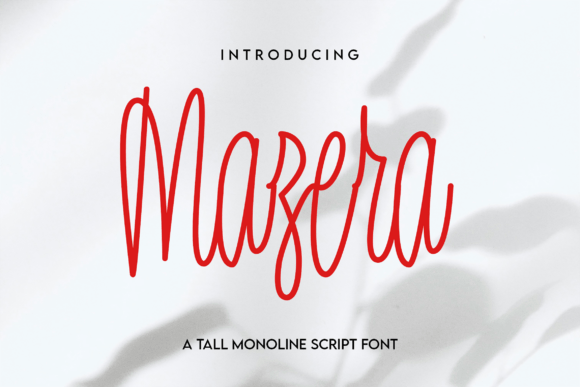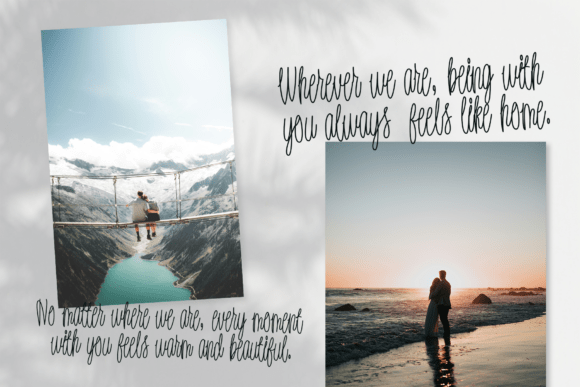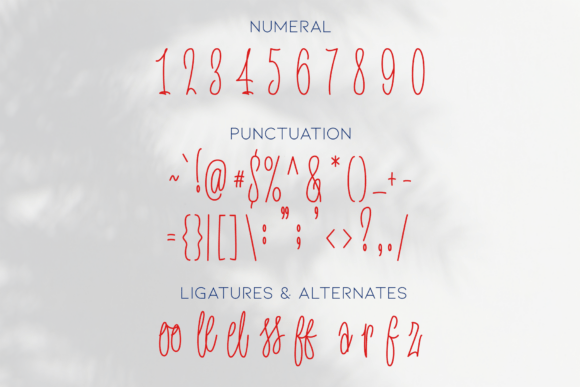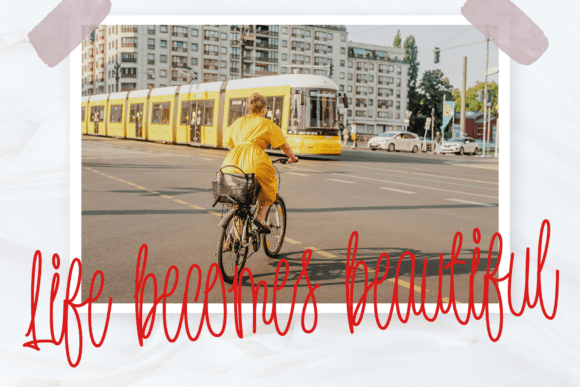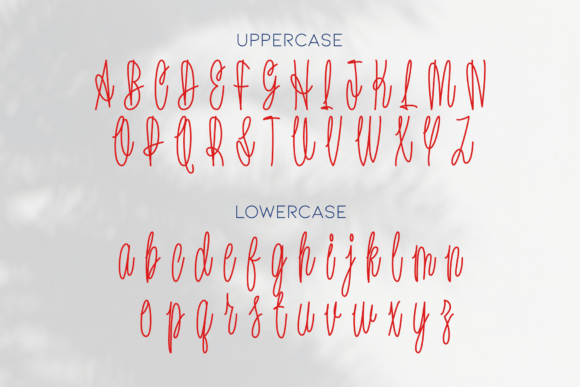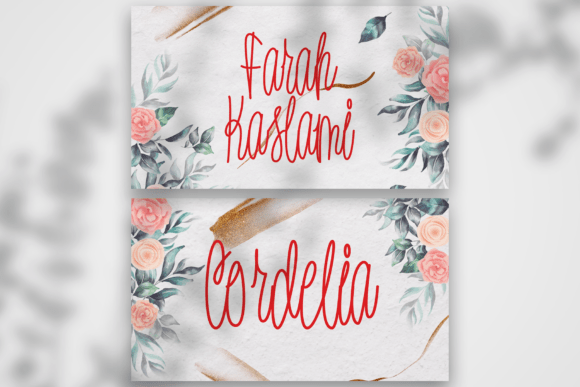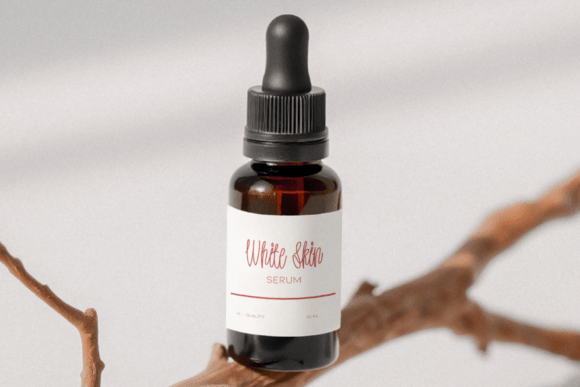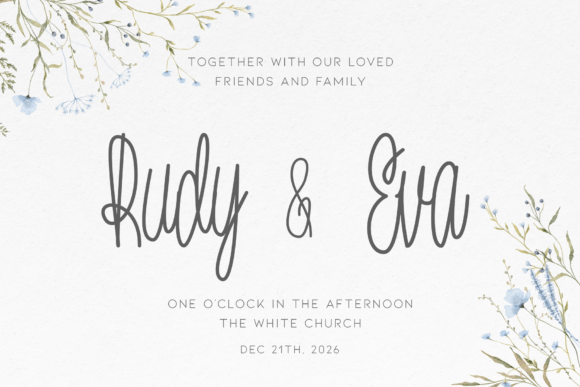
Mazera Script Fonts
Define your next project with the lofty, linear elegance of Mazera. This monoline script reimagines the handwritten form through a lens of verticality and polished restraint. By pairing elongated proportions with a constant stroke weight, it achieves a rhythmic sophistication that feels both contemporary and curated.
Mazera isn’t just a typeface; it’s a study in fluid geometry. Its streamlined curves provide a seamless legibility that commands attention in display settings while retaining an intimate, bespoke charm. It is the quintessential choice for creators seeking an aesthetic that is as crisp as it is graceful.
From high-end identity systems and artisanal packaging to editorial storytelling and ethereal event stationery, Mazera lends a whisper of understated luxury to every canvas. It is the perfect typographic companion for visual narratives that demand a touch of modern poise.